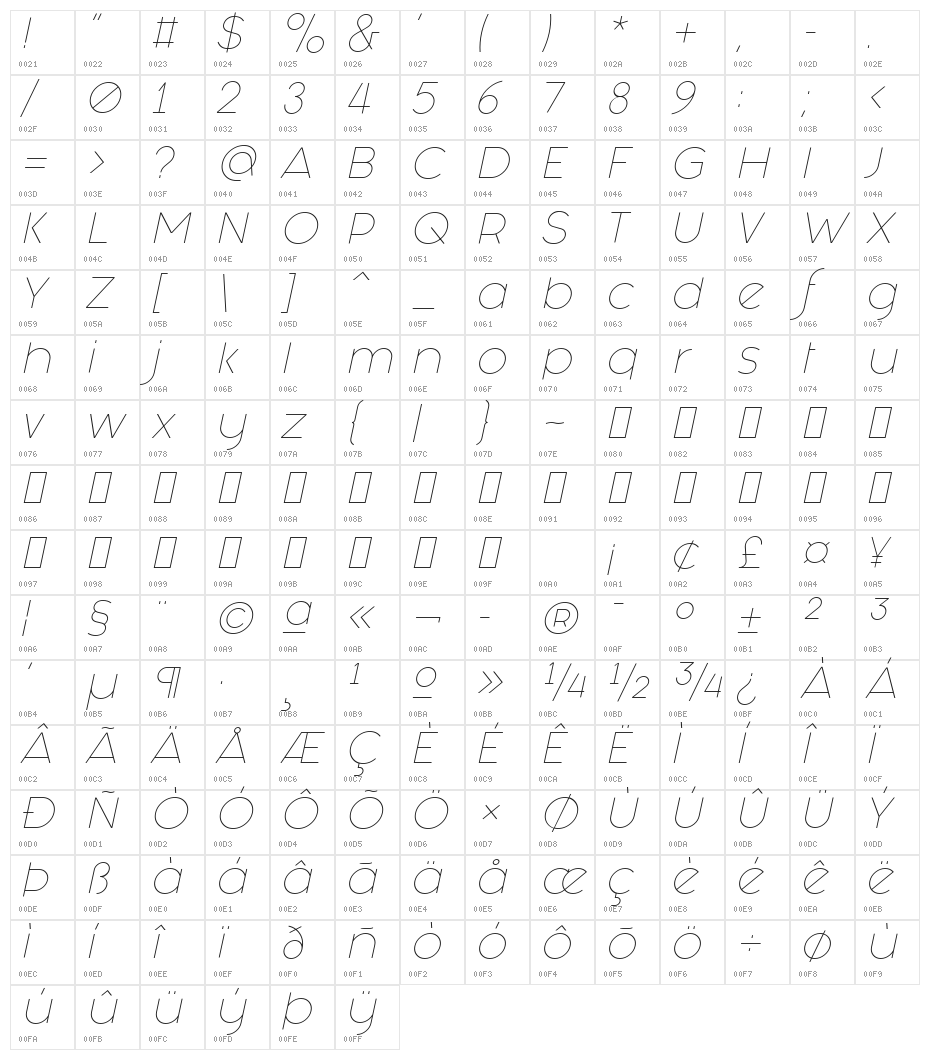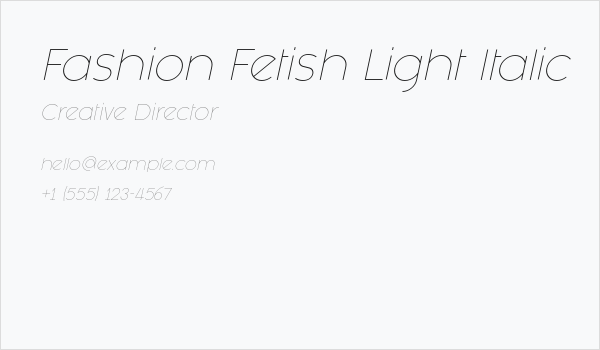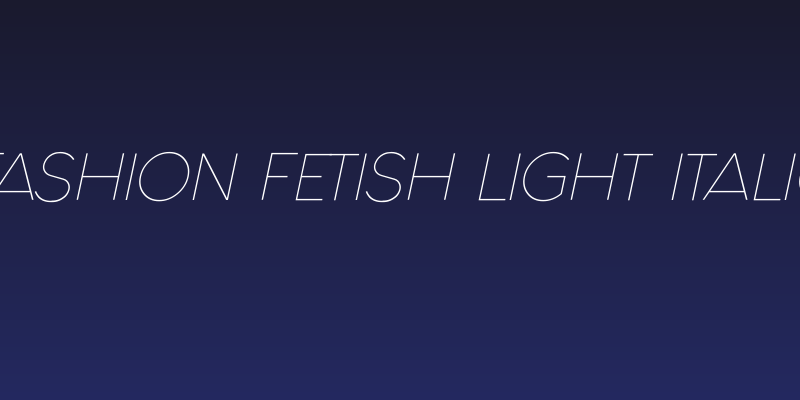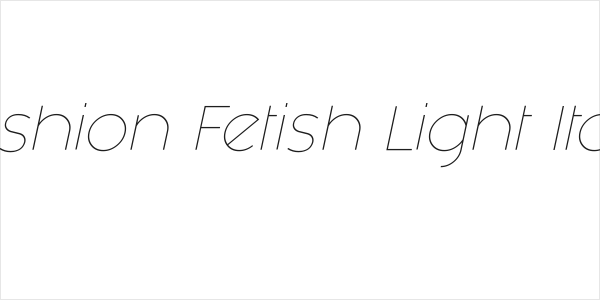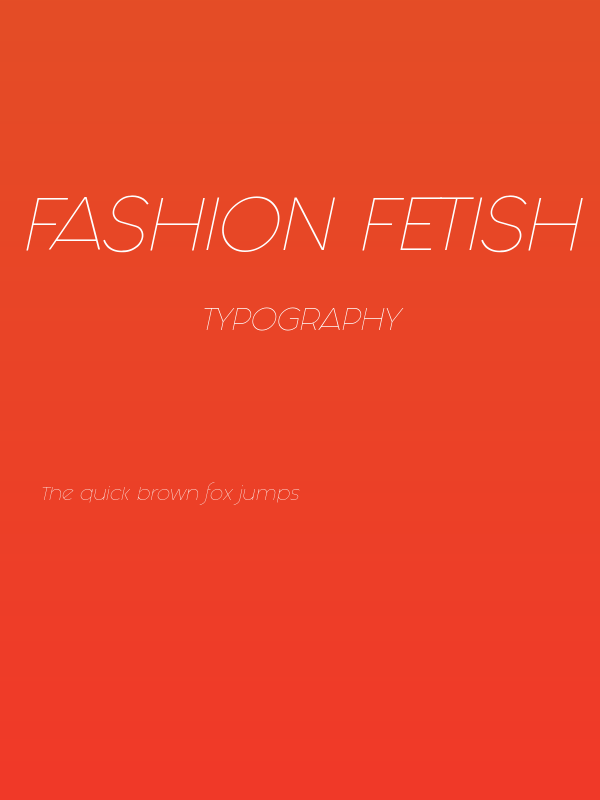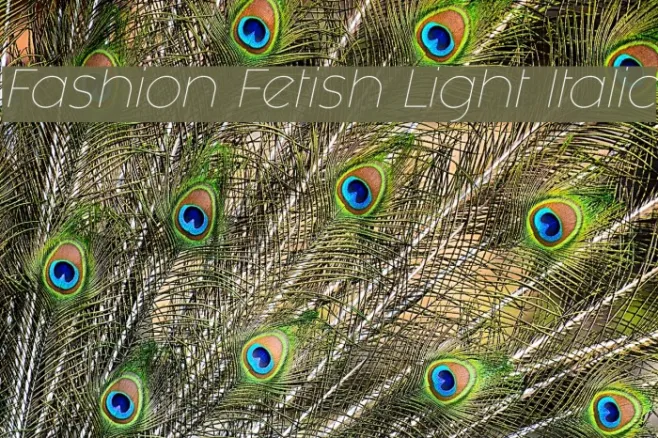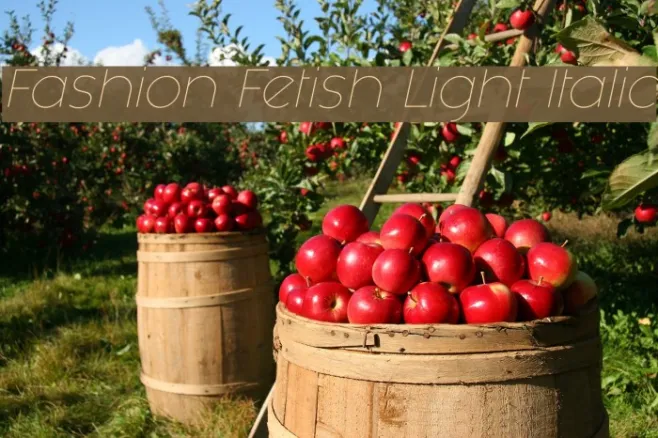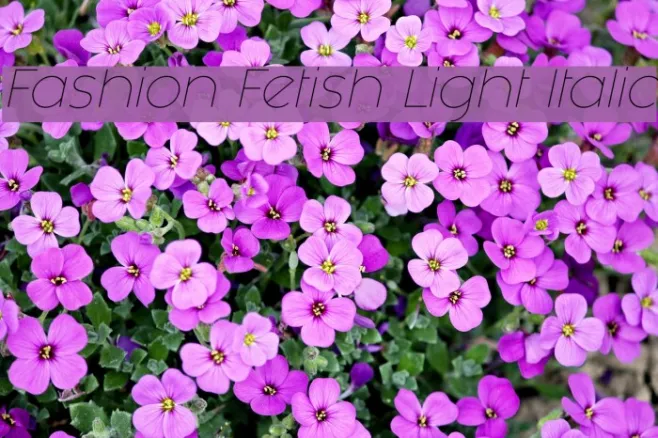
Fashion Fetish Light Italic Font
Fashion Fetish Light Italic Description
This font features a sleek and modern design with a light and airy feel. The characters are elegantly slanted, giving it an italicized appearance that adds a sense of motion and fluidity. The strokes are thin and consistent, contributing to a minimalist aesthetic. The uppercase and lowercase letters maintain a uniform style, with rounded edges and smooth curves. The numerals and special characters are designed to match the overall sleekness, ensuring a cohesive look across all text elements.
| Proposed Projects | Ideal for fashion magazines, luxury brand logos, elegant invitations, and modern website headers. |